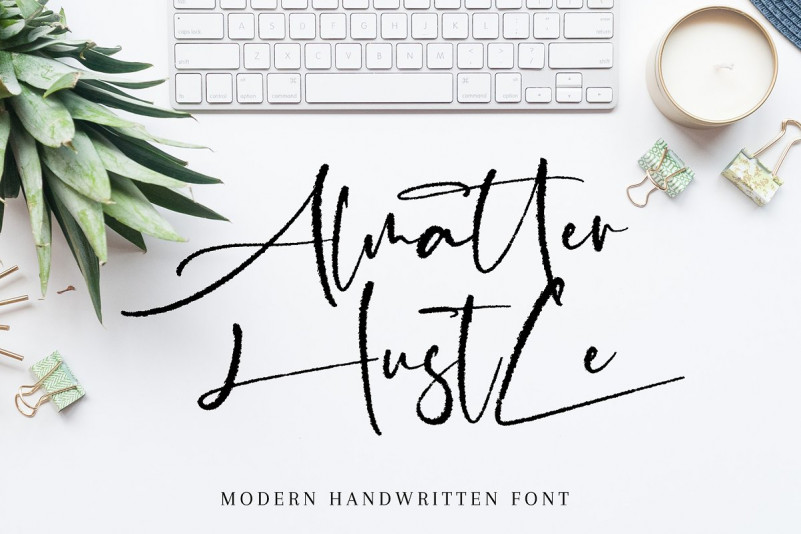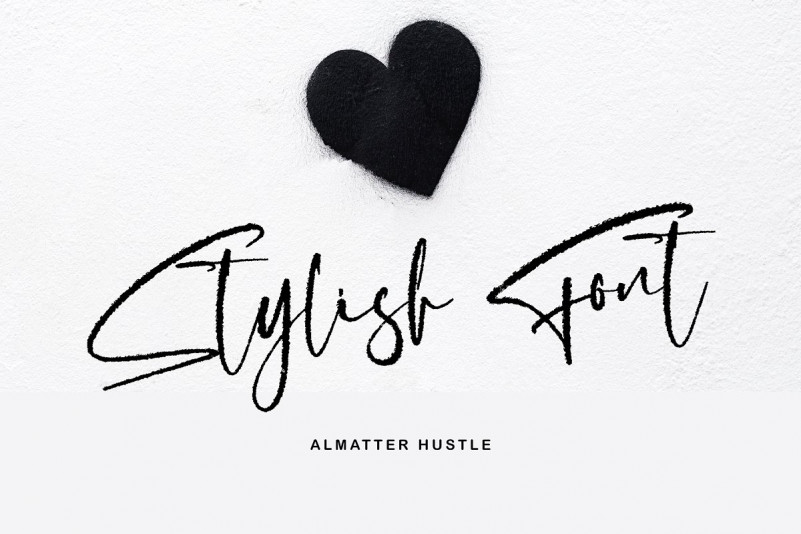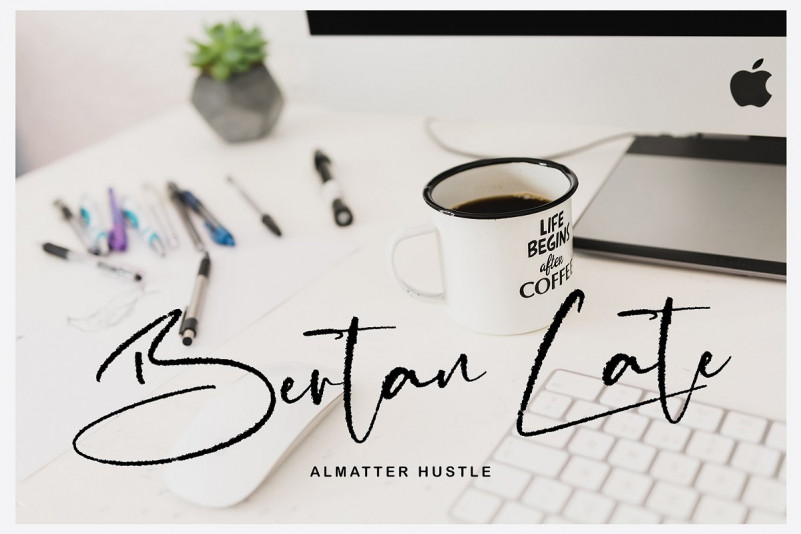
Almatter Hustle handwritten font with new style, this font will perfect for many different project ex: quotes, logo, blog header, poster, banding, fashion, apparel, letter, invitation, stationery, etc…